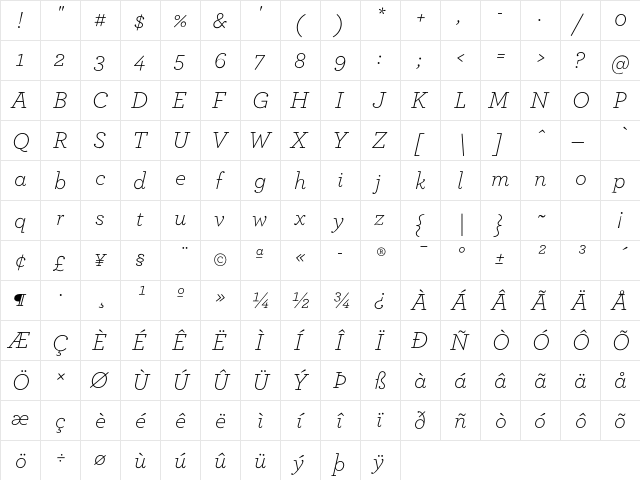
ArcherPro Light Italic Font Preview
ArcherPro Light Italic
Design Context for ArcherPro Typeface
ArcherPro is a composed and adaptable typeface that performs quietly and consistently across a wide range of design contexts. The dynamic lean of this cut emphasises speed and emphasis in any layout. Its slender proportions lend an understated elegance to any composition.
Pro Tip: Use ArcherPro for emphasis, pull quotes, and subheadings where its slanted energy can add rhythm to the layout.